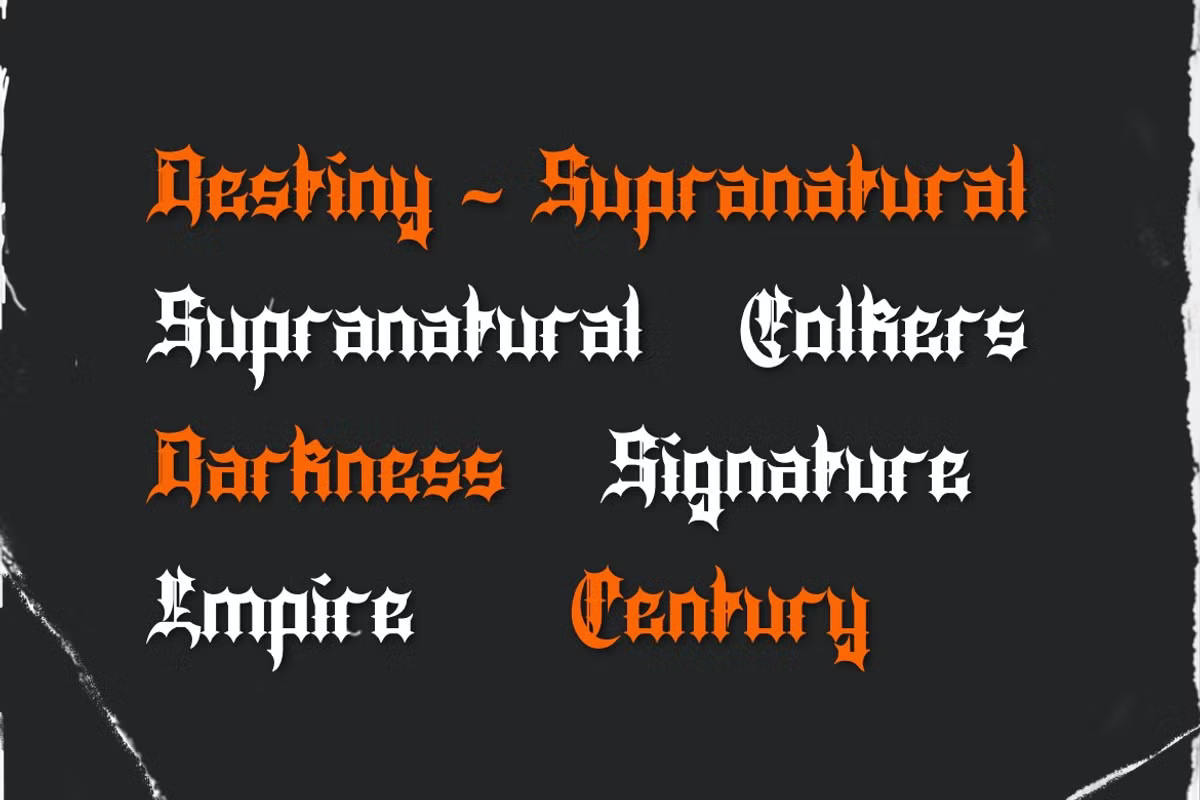
Curseyt is a crisp gothic blackletter with long spurs and pointed, broken curves. The title card sets “Gothic Curseyt” in white over a grungy, scratched texture, with a circular stamp of small text in orange behind it. It feels close to tattoo lettering.
Best uses for Curseyt
- Tattoo lettering
- Band merch
- Streetwear
- Brewery labels
- Gothic posters
Pair it with a plain sans such as Archivo or a simple serif like Lora.
Curseyt Blackletter Font